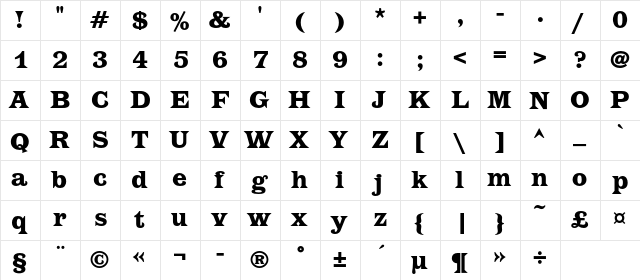
EtienneC Bold
Design Context for EtienneC Typeface
EtienneC is a composed and adaptable typeface that performs quietly and consistently across a wide range of design contexts. Its bold stroke weight gives it real presence on the page.